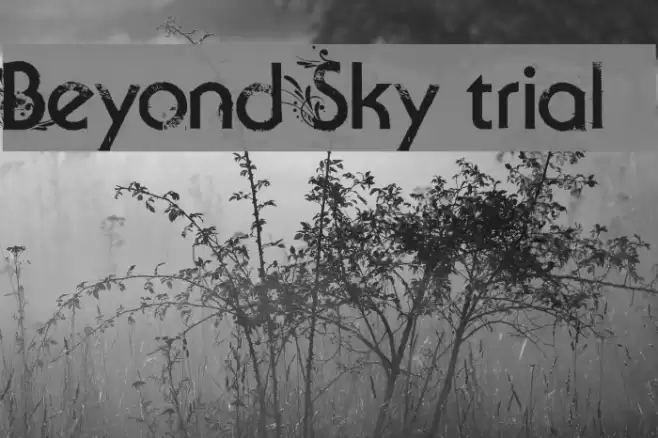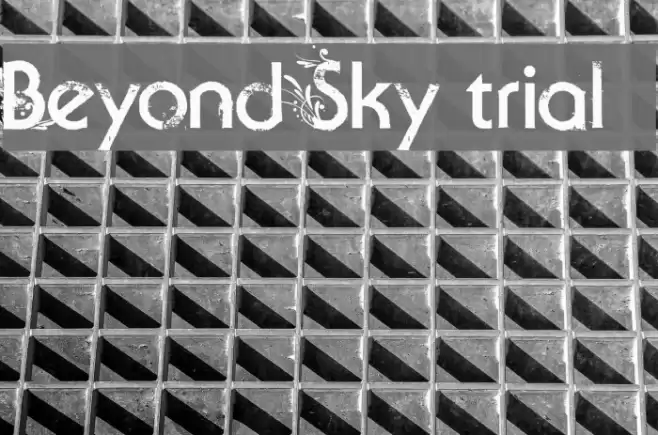
Beyond Sky trial Font
Beyond Sky trial Description
This font features a distressed and grunge style, characterized by its rough and textured appearance. The letters have an uneven, worn-out look, giving them a unique and edgy feel. The lowercase letters maintain a consistent height, while the uppercase letters stand out with their bold presence. The font's design incorporates irregularities and imperfections, adding to its raw and organic aesthetic. This style is ideal for projects that require a bold statement or a vintage, rebellious vibe. The font's distinctive appearance makes it suitable for creative and artistic endeavors.
A distressed, grunge-style font with a rough, textured appearance from Uncategorized fonts.
- Proposed Projects: Album covers, posters, urban-themed designs, and artistic projects.
- Overall Style: Grunge, Edgy, Vintage